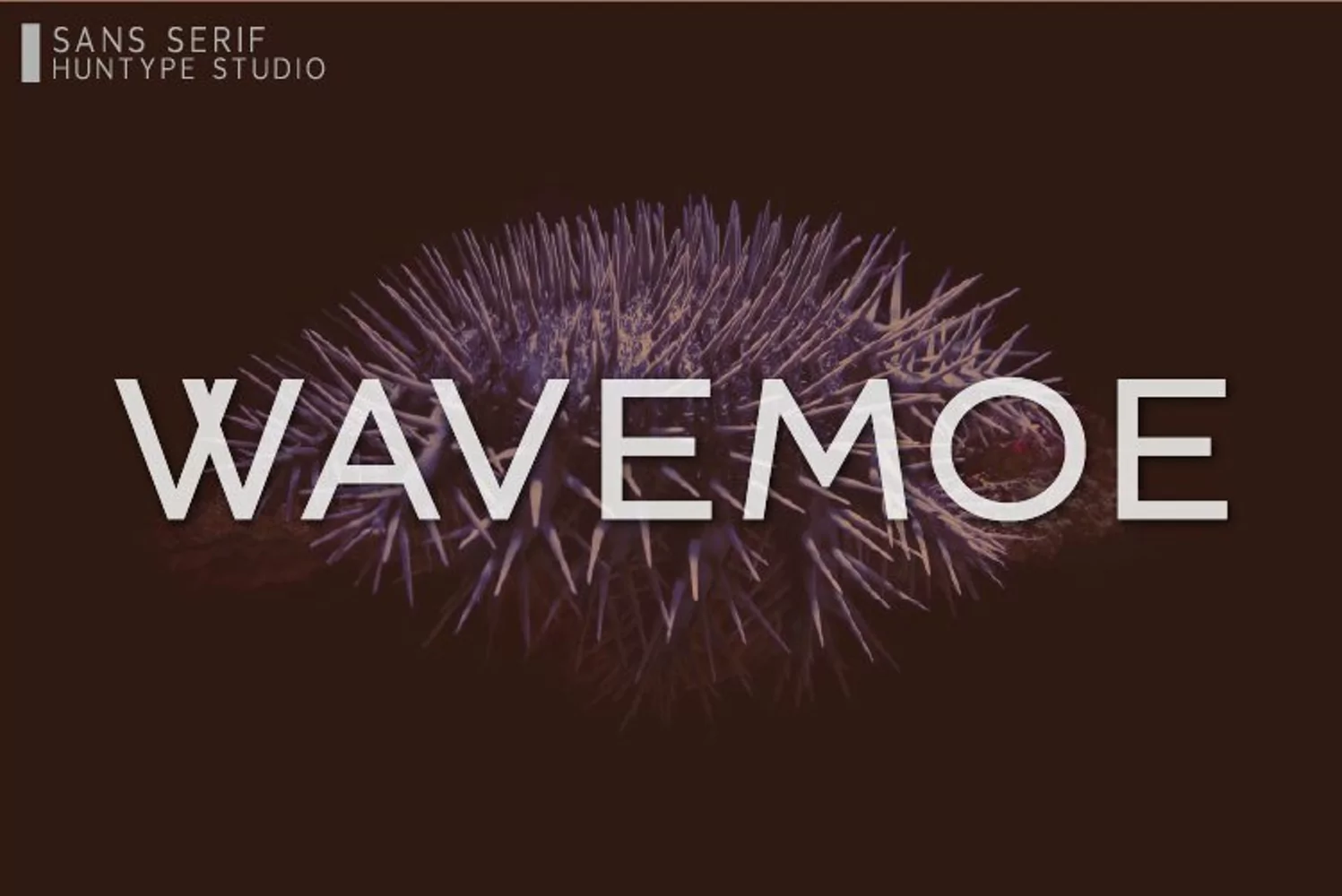
Wavemoe
Wavemoe is an adaptable and neat sans serif font. It can easily be matched to an incredibly large set of projects, so add it to your creative ideas and notice how it makes them stand out!